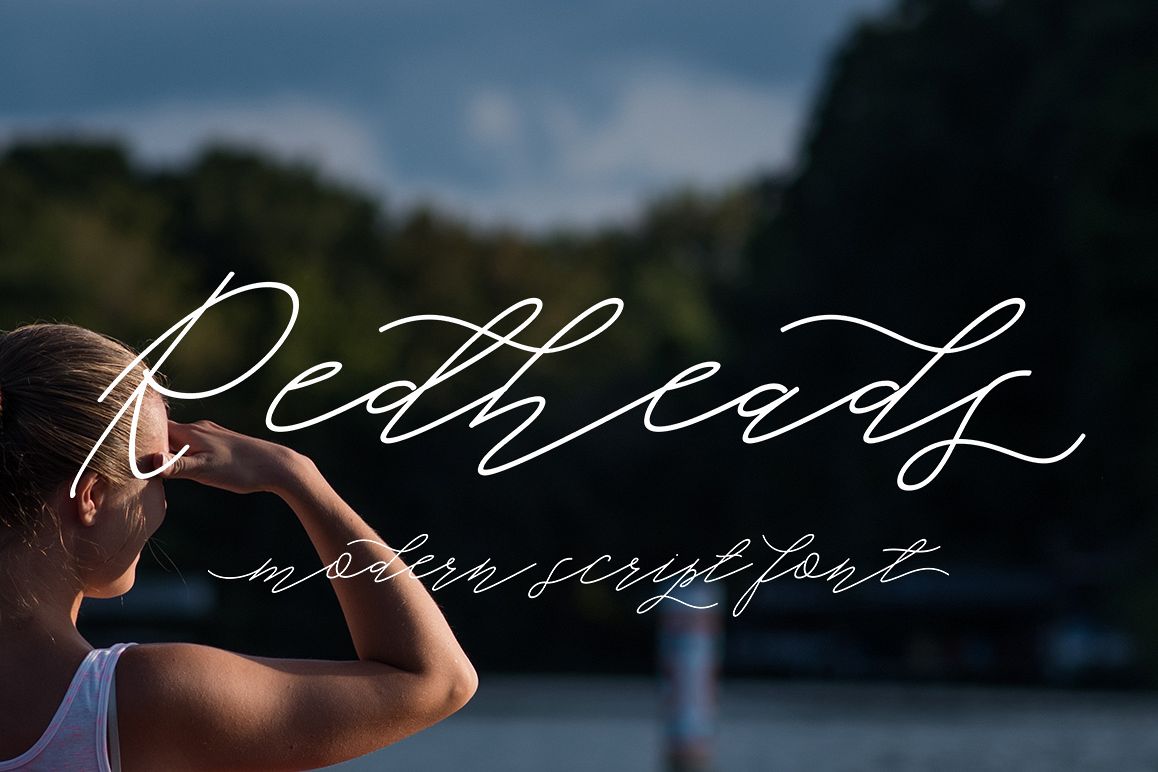
Redheads Script
Redheads Script is a lovely calligraphic manuscript modern, I hope you are interested in this font, dynamic and pretty with swashes. Can be used for many purposes. such as title, signature, logo, wedding invitations, letterhead, signage, labels, newsletters, posters, badges, etc.
Redheads Script features Open type, including the initial and terminal letters, ligatures and International support for most Western languages ??included.